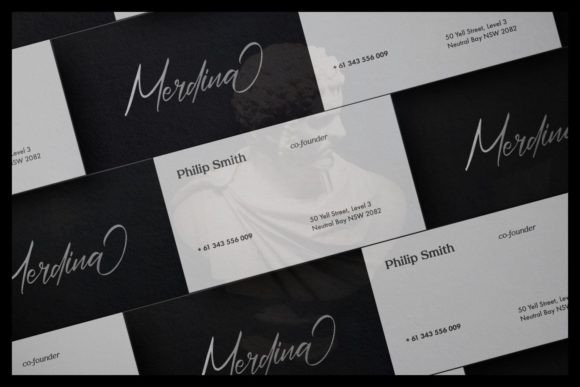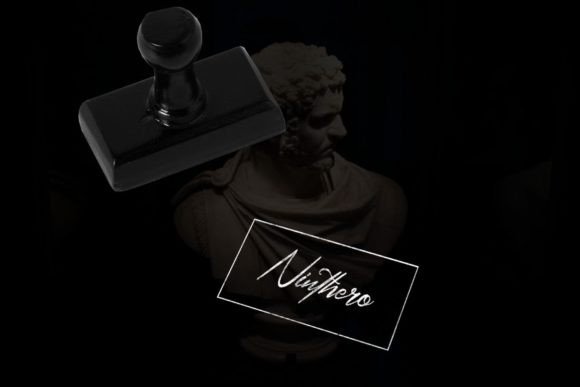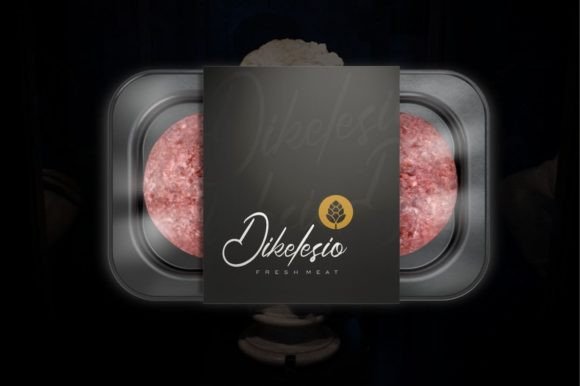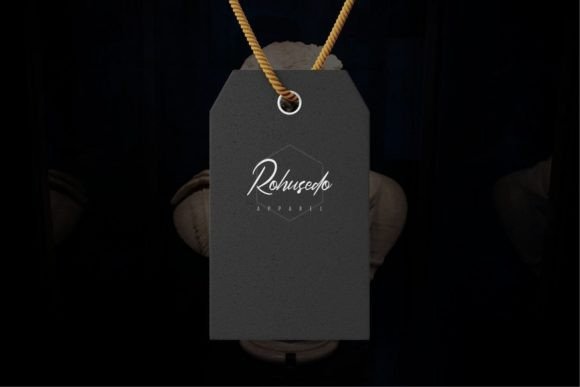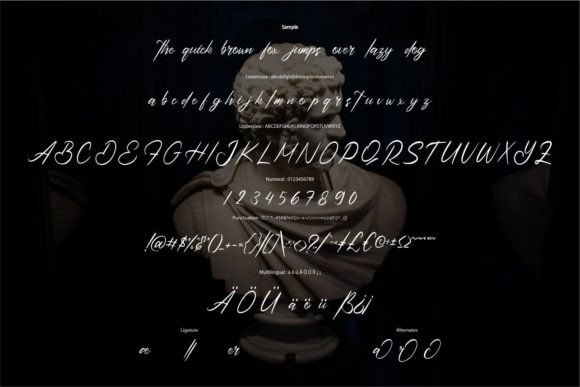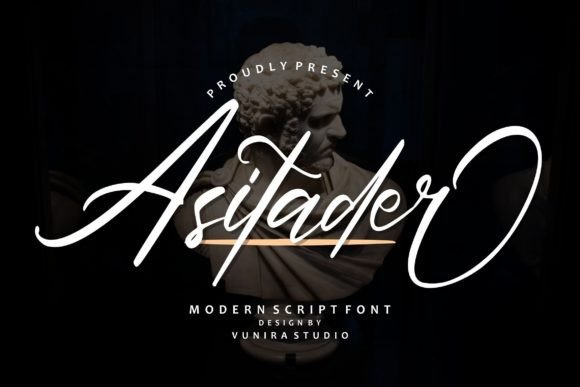
Introducing Asitader Font: Elevate Your Designs with Elegance and Sophistication
In the world of typography, a font can make or break a design. It’s the foundation upon which the entire visual aesthetic is built. For designers and crafters seeking to add a touch of elegance and sophistication to their projects, look no further than the Asitader Font. This stunning script font is inspired by timeless classic calligraphy, offering a contemporary atmosphere and impeccable form that will elevate your designs to new heights.
The Perfect Balance of Style and Versatility
Asitader Font strikes the perfect balance between style and versatility. Not too thin and not too thick, this font boasts a balanced and varied design that makes it suitable for a wide range of applications. Whether you’re working on a logo, branding materials, packaging, or digital projects, Asitader Font is the perfect choice. Its elegant script style adds a touch of sophistication and refinement, making it ideal for designs that require a high level of professionalism.
Inspired by Timeless Classic Calligraphy
Asitader Font draws inspiration from the world of classic calligraphy, where the art of beautiful handwriting is revered. The font’s design is rooted in traditional calligraphic techniques, yet it has been carefully crafted to meet the demands of modern design. The result is a font that exudes elegance, sophistication, and refinement, making it perfect for designers seeking to create stunning visual experiences.
One of the standout features of Asitader Font is its PUA (Private Use Area) encoding. This means that designers can access all the amazing glyphs and ligatures with ease, giving them complete creative control over their projects. With PUA encoding, you can effortlessly insert special characters, swashes, and other unique elements that will take your designs to the next level.
Key Features of Asitader Font
• Elegant script font: Asitader Font boasts a beautiful, flowing script style that’s perfect for designs that require a touch of sophistication.
• Contemporary atmosphere: This font has a modern feel that’s perfect for designers seeking to create fresh, contemporary designs.
• Impeccable form: Asitader Font is designed with impeccable form, ensuring that it looks stunning in any design.
• Balanced and varied: The font’s balanced and varied design makes it suitable for a wide range of applications.
• PUA encoded: Easy access to glyphs and ligatures for complete creative control.
Use Asitader Font in Your Designs
Asitader Font is perfect for a wide range of design applications, including:
• Logo design: Create stunning logos that exude elegance and sophistication.
• Branding materials: Use Asitader Font to create beautiful business cards, letterheads, and other branding materials.
• Packaging design: Add a touch of refinement to your packaging designs with this beautiful script font.
• Digital projects: Use Asitader Font in digital projects, such as website designs, social media graphics, and more.
In conclusion, Asitader Font is a stunning script font that’s perfect for designers and crafters seeking to add a touch of elegance and sophistication to their projects. With its balanced and varied design, PUA encoding, and elegant script style, this font is sure to elevate your designs to new heights. Whether you’re working on a logo, branding materials, packaging, or digital projects, Asitader Font is the perfect choice.